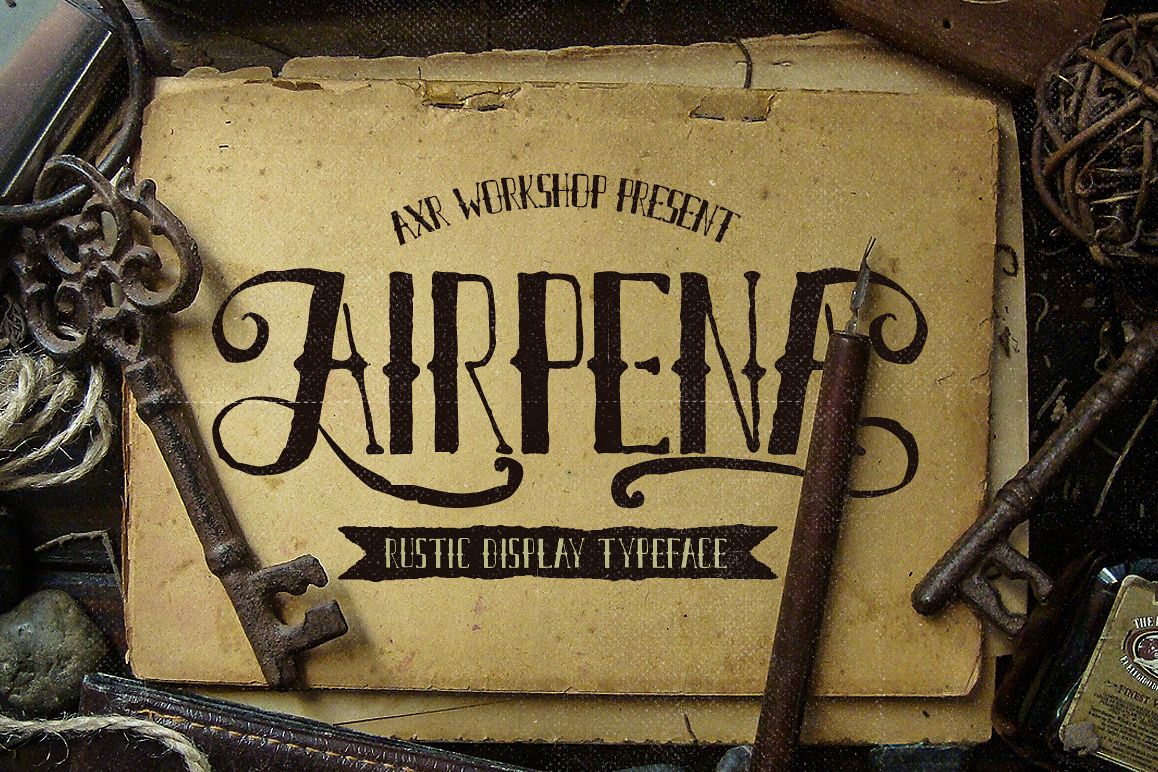
Airpena Rustic Font
AXRAirpena-Roman
Inspired from rusted and distressed handdrawn lettering used on retro motorcycle. AIRPENA is represent the retro rustic style of it.
It comes with full alphabet alternates for Uppercase (Front & end) & Lowercase (end) its give you an exciting experience to use it in titling and or writing.